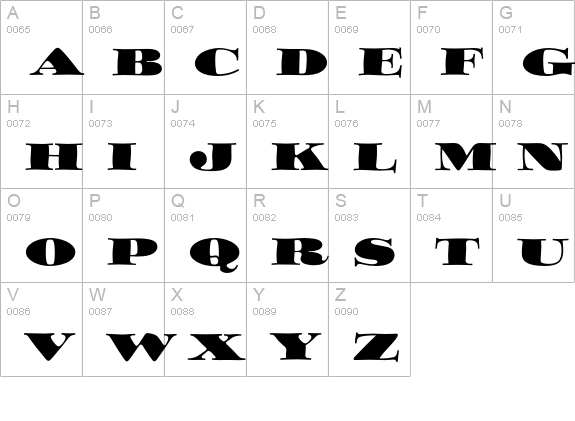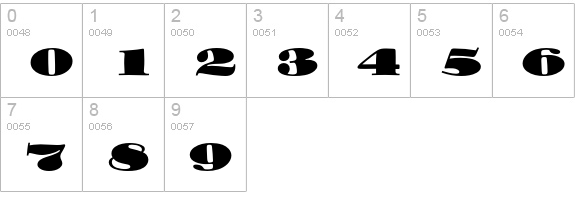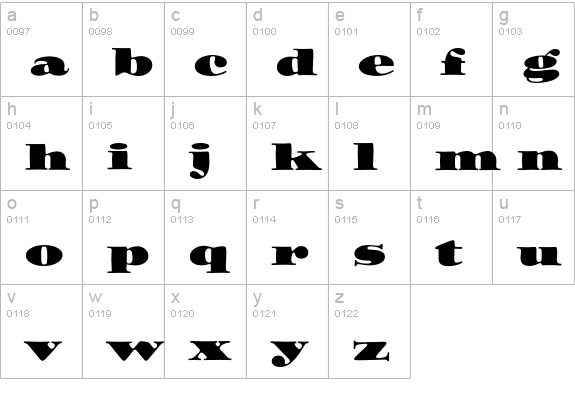
OzwaldEF Font Details
OzwaldEF font is a sleek and modern typeface that exudes sophistication and elegance. Its clean lines and sharp edges make it perfect for a wide range of design projects, from logos to headlines to branding materials. With its eye-catching appearance, OzwaldEF font commands attention and adds a touch of class to any layout. Best of all, OzwaldEF font is available for free download at FontsMarket.com. This means you can easily access this premium-quality font without any cost, making it a valuable addition to your font collection. Whether you're a designer looking to enhance your projects or a business owner wanting to elevate your brand, OzwaldEF font is sure to impress with its versatility and style. Download it today and see the difference it can make in your designs!